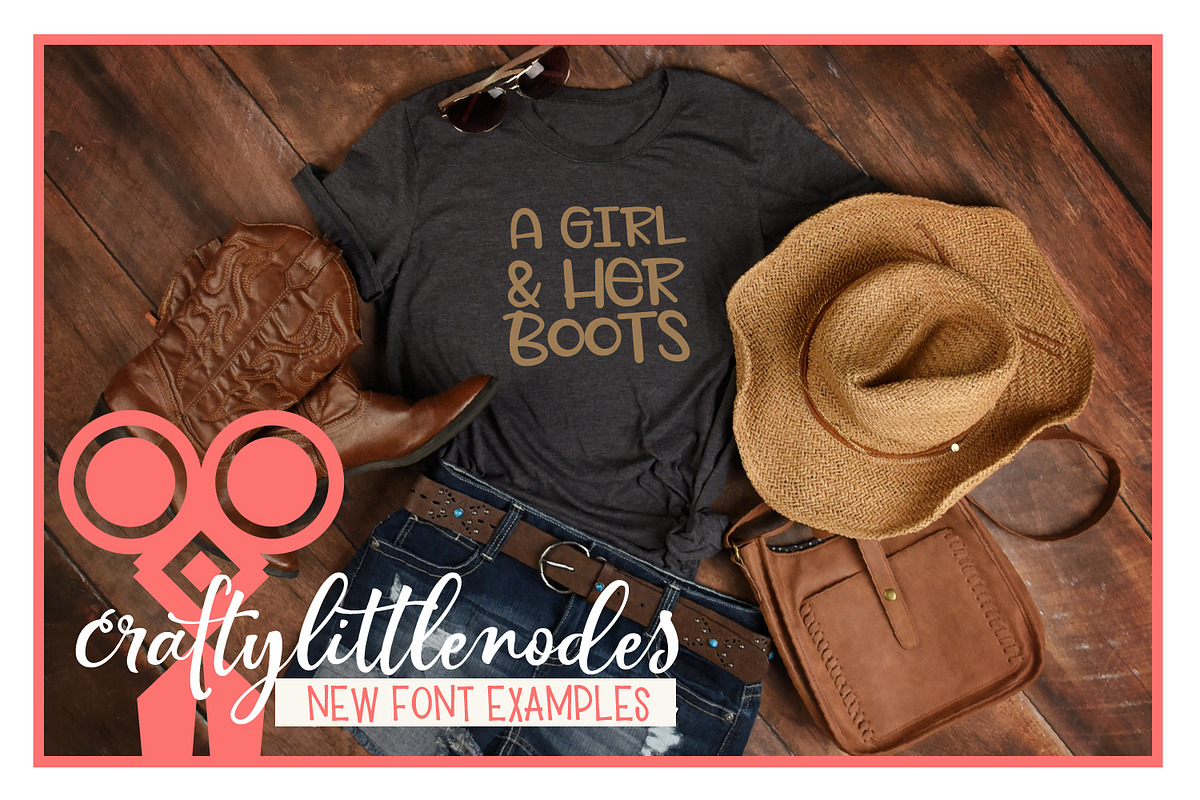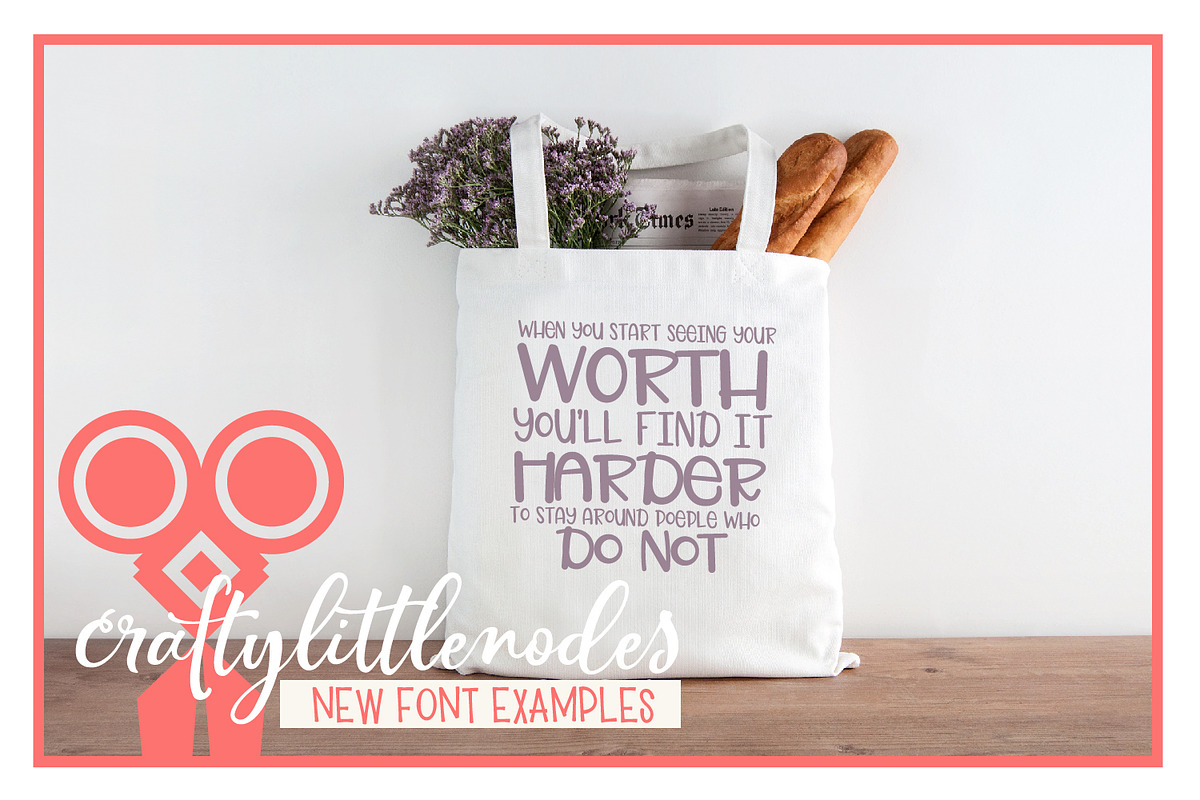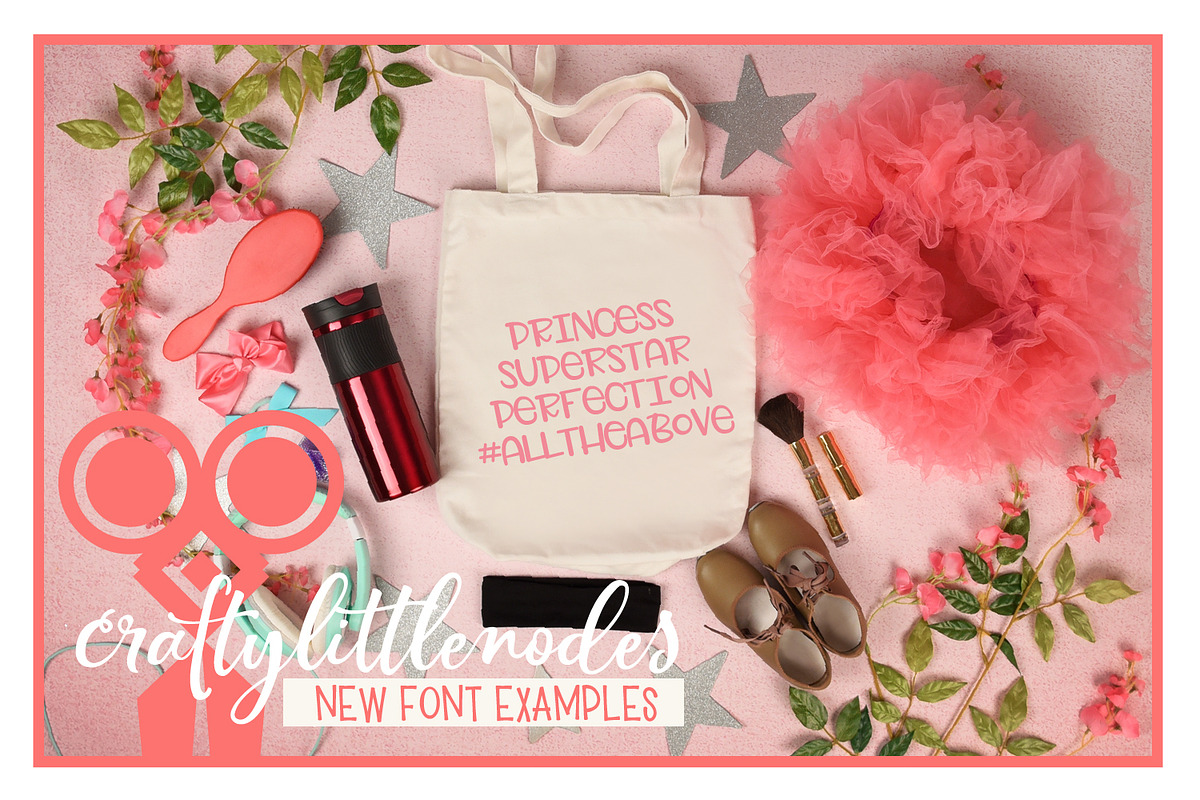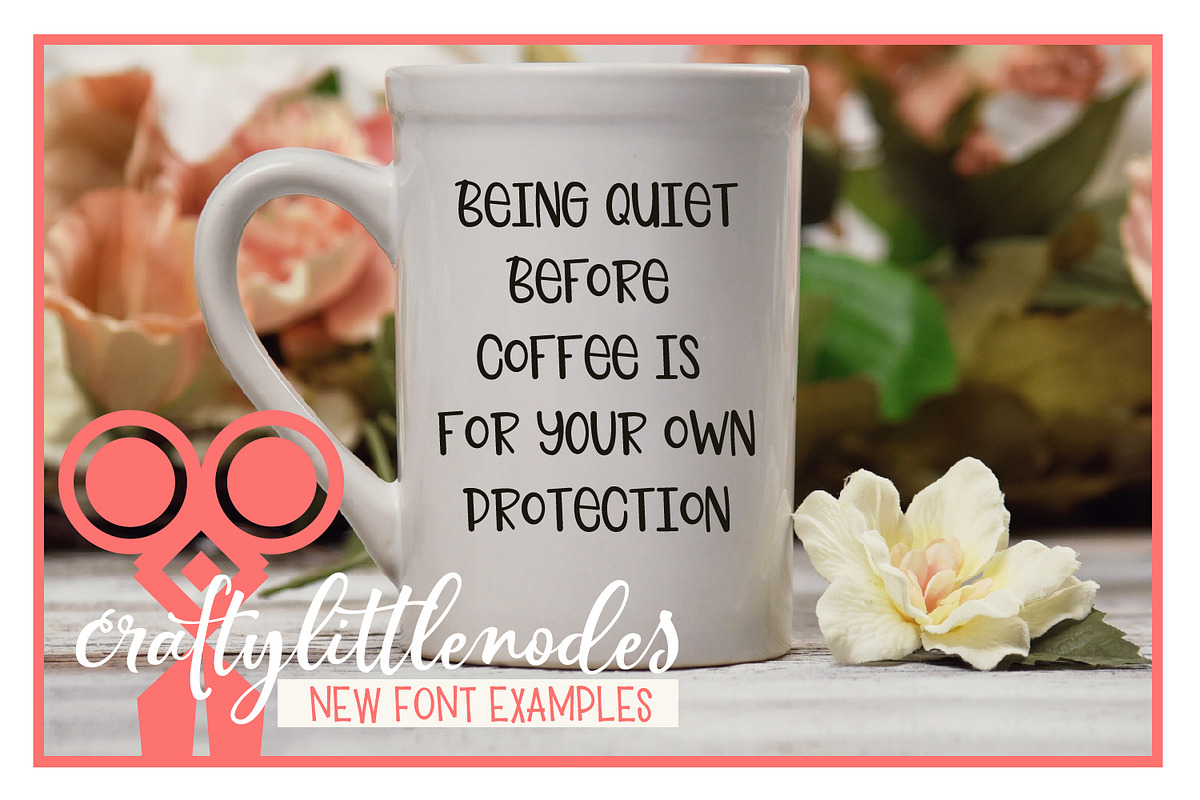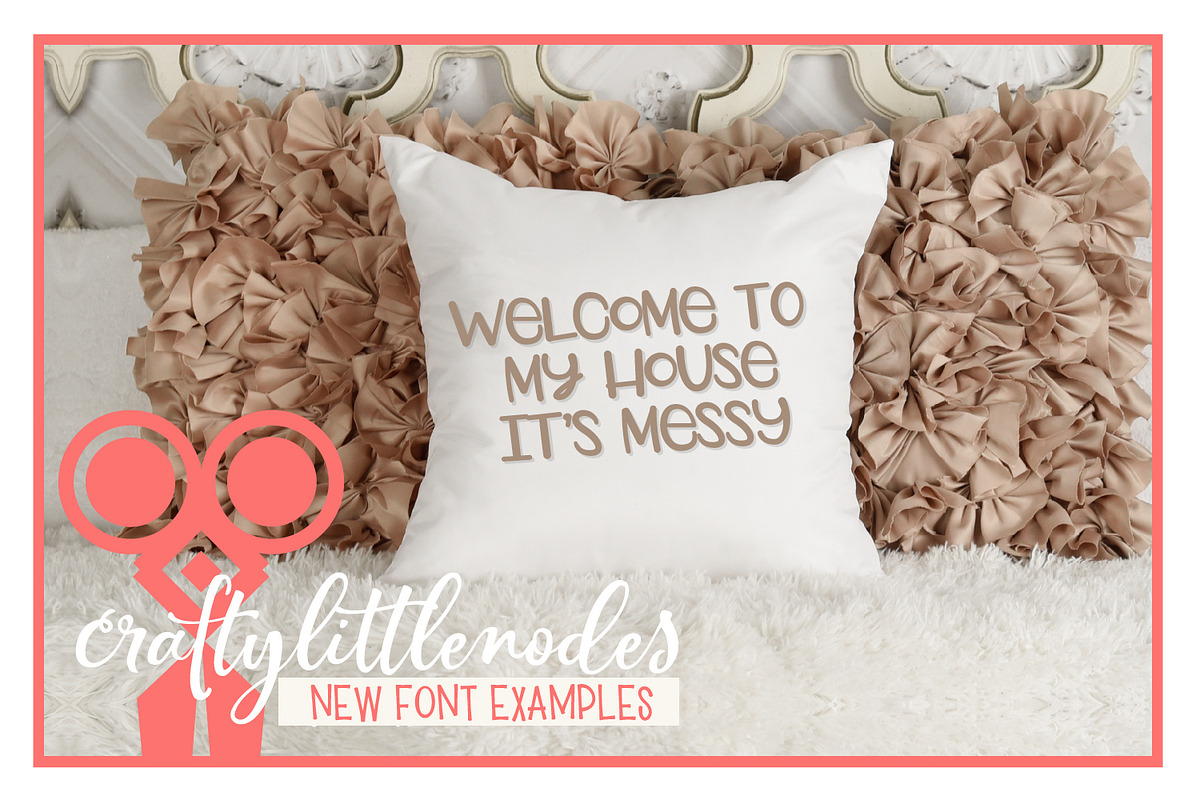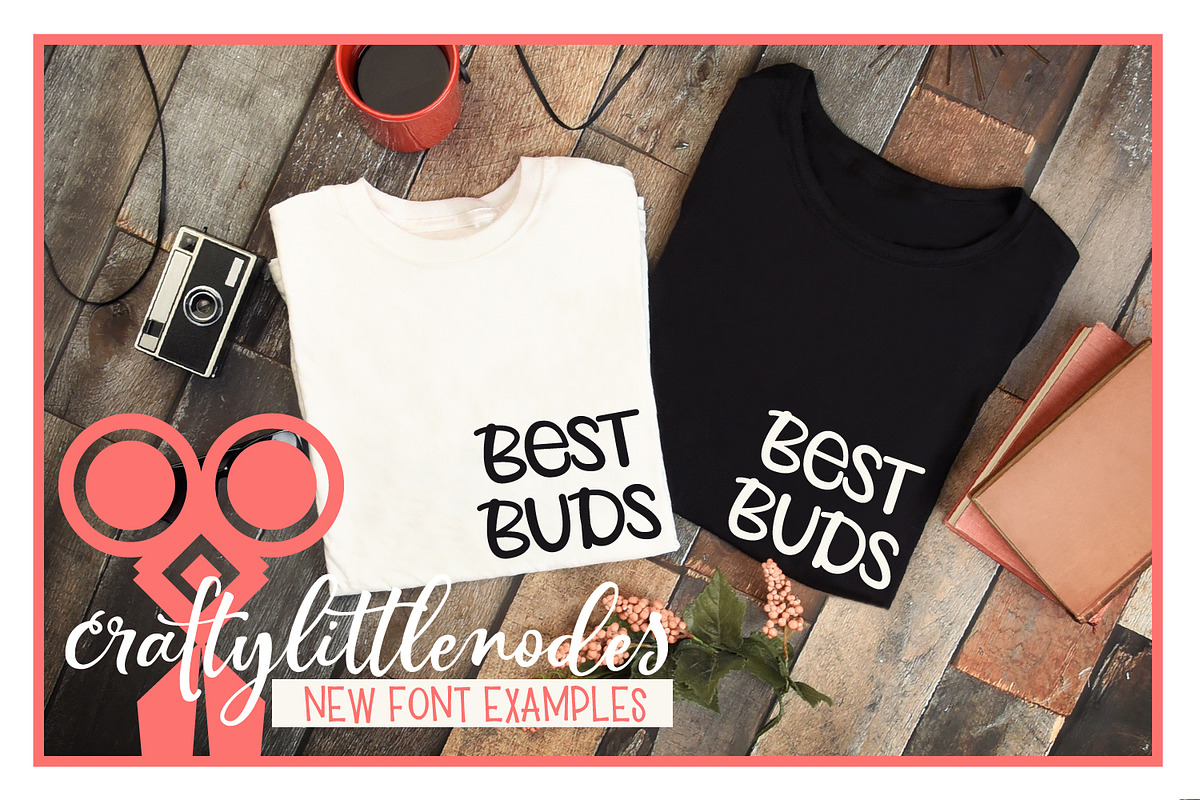
Pamela's Notebook - Font Duo
Why Pamela's Notebook - Font Duo is worth a look
Pamela's Notebook - Font Duo by CraftyLittleNodes fits naturally into Branding, posters, packaging, typography.